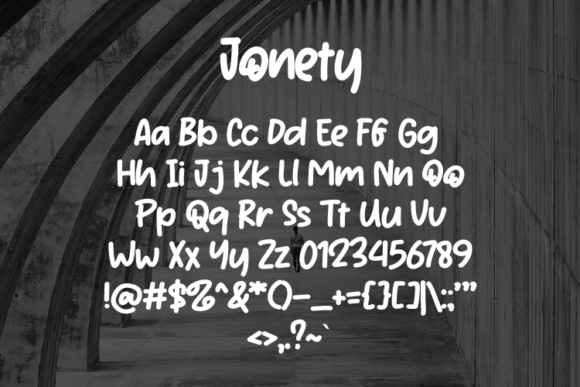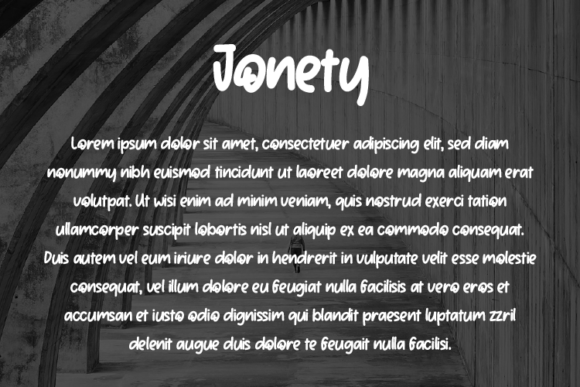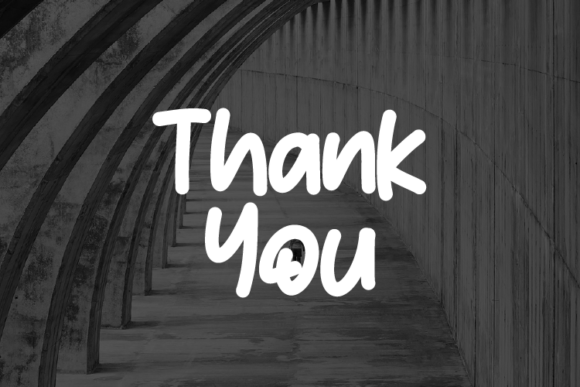
Introduction to Jonety Font
As a designer, there’s nothing quite like the thrill of bringing a creative project to life. It’s the moment when all the pieces come together, and your vision starts to take shape. For many of us, this moment is often hindered by the perfect font – one that’s both elegant and readable. That’s where the Jonety Font comes in, offering a modern and sophisticated solution for designers.
Key Features of Jonety Font
- High-quality, professional design for creative projects and presentations
- Transparent background for seamless integration with any design resource
- Perfect for designers, artists, and writers looking for a unique and stylish font
- Includes multiple weights and styles for added versatility and creative freedom
- Designed with high resolution (300 DPI) for crisp and clear display in various sizes
- Comes in a range of sizes, from 12pt to 72pt, to suit any design need
Honest Review: Jonety Font
As a designer, I’m always on the lookout for high-quality design resources to elevate my creative projects. Recently, I stumbled upon the Jonety Font, and I’m excited to share my thoughts on it.
Here’s what works well:
- ✨ The Jonety Font is incredibly versatile, with a modern and sleek design that’s perfect for a wide range of creative projects.
- ✨ The transparent background makes it easy to layer and composite the font with other design elements.
- ⚠️ The font is not suitable for use in print materials with small font sizes, as it may appear pixelated.
Overall, I’m impressed with the Jonety Font. It’s a great addition to any designer’s toolkit, and I appreciate the high quality and versatility it offers. If you’re looking for a modern, sleek font for your creative project, I’d definitely recommend giving it a try.
The Jonety Font is a free download design resource ideal for creative projects. It offers a high-quality, modern design aesthetic with a transparent background, making it perfect for a variety of applications.
To get the most out of Jonety Font, experiment with different font sizes, colors, and styles to create a unique design aesthetic. You can also use the font in combination with other design elements to create a cohesive look.
The Jonety Font is ideal for a variety of creative projects, including branding, logos, and marketing materials. Its modern design aesthetic and transparent background make it perfect for use in digital designs, such as social media graphics and website headers.